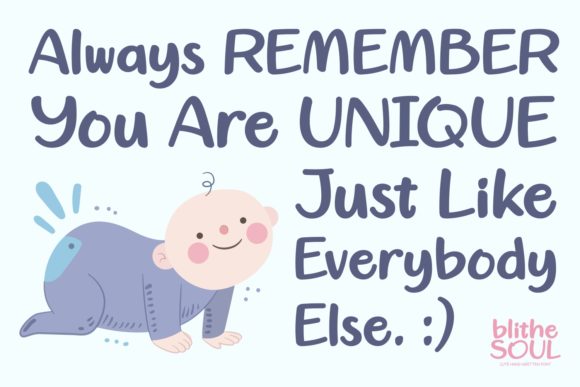
Introducing Blithe Soul Font: The Perfect Addition to Your Kids’ Design Projects
Are you a designer or crafter looking for a font that can add a touch of charm and style to your kids-related designs? Look no further than Blithe Soul Font! This adorable handwritten font is specifically designed to bring a sense of happiness and playfulness to your projects, making it perfect for designs aimed at kids.
What Makes Blithe Soul Font So Special?
Blithe Soul Font is a unique and carefully crafted font that boasts a range of characteristics that set it apart from other fonts. Here are just a few reasons why it’s a must-have for designers and crafters:
- Cute and Happy Design: Blithe Soul Font is designed to be cute and happy, making it perfect for designs aimed at kids. Its playful and cheerful vibe is sure to capture the attention of your audience and leave a lasting impression.
- Handwritten Style: The font features a beautiful handwritten style that adds a personal touch to your designs. Its imperfections and quirks give it a charming and organic feel that’s perfect for creating unique and eye-catching designs.
- Perfect for Kids’ Designs: Blithe Soul Font is specifically designed with kids’ designs in mind. Whether you’re creating materials for a kids’ party, a children’s book, or a kids’ product, this font is sure to bring a smile to their faces.
How to Use Blithe Soul Font in Your Designs
Using Blithe Soul Font in your designs is easy! Here are a few tips to get you started:
- Pair it with Other Fonts: Blithe Soul Font pairs perfectly with other fonts, making it easy to create visually appealing and engaging designs. Try pairing it with a bold font for headings and a clean font for body text.
- Use it for Headings and Titles: The font’s playful and cheerful vibe makes it perfect for headings and titles. Use it to add a pop of personality to your designs and make them stand out.
- Add it to Your Digital and Print Materials: Blithe Soul Font is versatile and can be used in both digital and print materials. Add it to your website, social media graphics, brochures, flyers, and more to give your designs a consistent and professional look.
Benefits of Using Blithe Soul Font
Using Blithe Soul Font in your designs comes with a range of benefits, including:
- Increased Engagement: The font’s playful and cheerful vibe is sure to capture the attention of your audience and increase engagement.
- Improved Brand Recognition: By using a unique and recognizable font like Blithe Soul Font, you can improve brand recognition and establish a consistent visual identity.
- Easy to Read and Understand: The font’s clear and legible design makes it easy to read and understand, even for younger audiences.
Who Can Benefit from Using Blithe Soul Font?
Blithe Soul Font is perfect for a range of designers and crafters, including:
- Kids’ Party Planners: Add a touch of whimsy and fun to your kids’ party materials, including invitations, decorations, and party favors.
- Children’s Book Authors: Bring your children’s book to life with Blithe Soul Font, perfect for titles, headings, and illustrations.
- Kids’ Product Designers: Add a playful and cheerful vibe to your kids’ product designs, including toys, clothing, and accessories.
- Graphic Designers: Expand your font library and offer Blithe Soul Font as a unique and creative option for your clients.
Blithe Soul Font is a unique and charming handwritten font that’s perfect for kids-related designs. Its playful and cheerful vibe makes it sure to capture the attention of your audience and leave a lasting impression. Whether you’re a designer, crafter, or DIY enthusiast, Blithe Soul Font is a must-have addition to your font library.